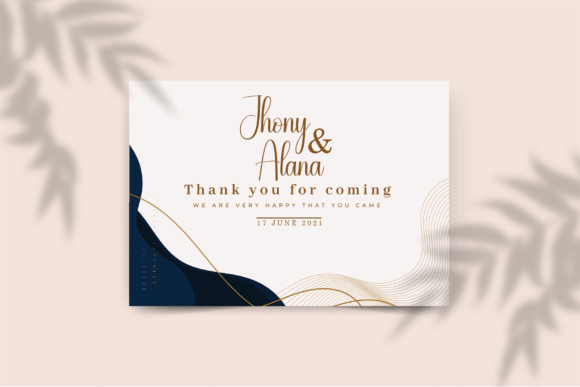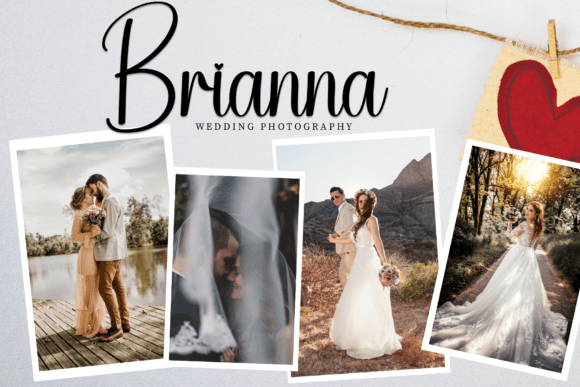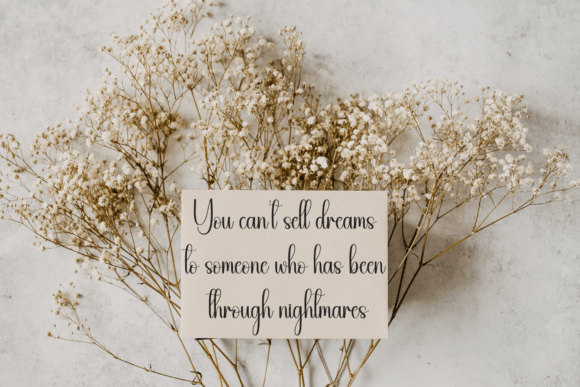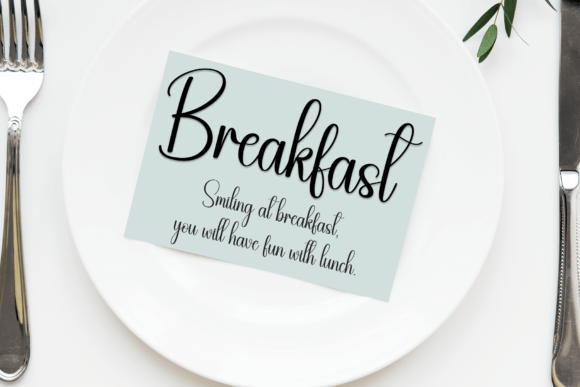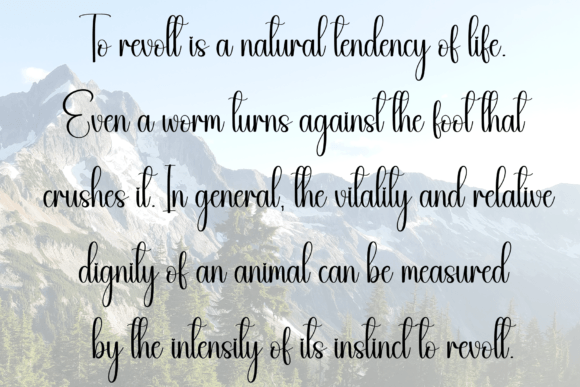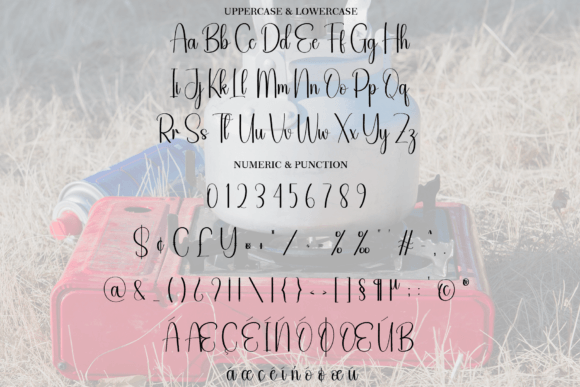
The Sweet Charm of Gasstove Font: A Designer’s Delight
I’ll never forget the time I was working on a wedding invitation project, and my client asked for a font that was “fun, yet elegant.” I scoured the internet, trying out font after font, but nothing seemed quite right. That was until I stumbled upon Gasstove Font. This sweet and friendly handwritten font won my heart, and I’ve been hooked ever since!
An Honest Review of Gasstove Font
So, what makes Gasstove Font so special? Let’s dive into the good stuff! 😊
- ✨ Fresh and cute: Gasstove Font is perfect for adding a touch of whimsy to your designs.
- ✅ Highly legible: Despite its playful nature, Gasstove Font is easy to read, even in smaller sizes.
- 💕 Versatile: Use it for wedding invitations, cards, or any other design that needs a fun touch.
Of course, no font is perfect, and Gasstove Font has a few small quirks:
- 🤔 Limited character set: While Gasstove Font has a wide range of characters, it may not have every special character you need.
- ⚠️ Not suitable for body text: Gasstove Font is best used for headings or short paragraphs, as it can be a bit too playful for longer blocks of text.
- Experiment with OpenType features, such as ligatures and stylistic alternates, to add more personality to your text.
- Experiment with glyphs, ligatures, and stylistic alternates to add more flair to your text.
Gasstove Font was designed with love and care by a talented type designer who’s passionate about creating beautiful, handmade fonts. The story goes that the designer was inspired by the warmth and coziness of a gas stove and wanted to capture that feeling in a font. And so, Gasstove Font was born!